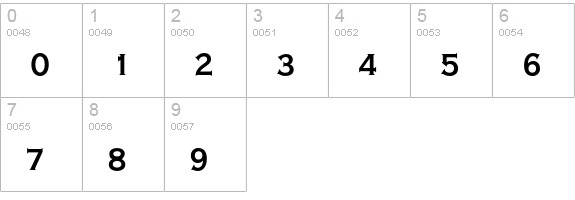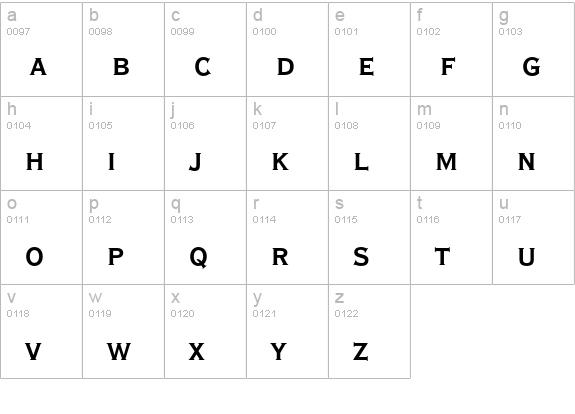
Copperplate Gothic Bold Condensed Font Details
Copperplate Gothic Bold Condensed is a strong, high-contrast, condensed-width variant in the Copperplate typeface family \xE2\x80\x94 well suited to headlines, attention-grabbing titles, and strong calls-to-action.
Copperplate Gothic Bold Condensed is a striking and versatile font that exudes a sense of strength and elegance. Its bold and condensed design makes it perfect for headlines, titles, and other attention-grabbing text. With its clean lines and distinct letterforms, Copperplate Gothic Bold Condensed commands attention and adds a touch of sophistication to any design project. Best of all, this font is available for free download at FontsMarket.com. Whether you're a professional designer looking to add a powerful font to your toolkit or a hobbyist looking to elevate your creative projects, Copperplate Gothic Bold Condensed is a fantastic choice. Download it today and unleash the bold beauty of this timeless font in your next project.